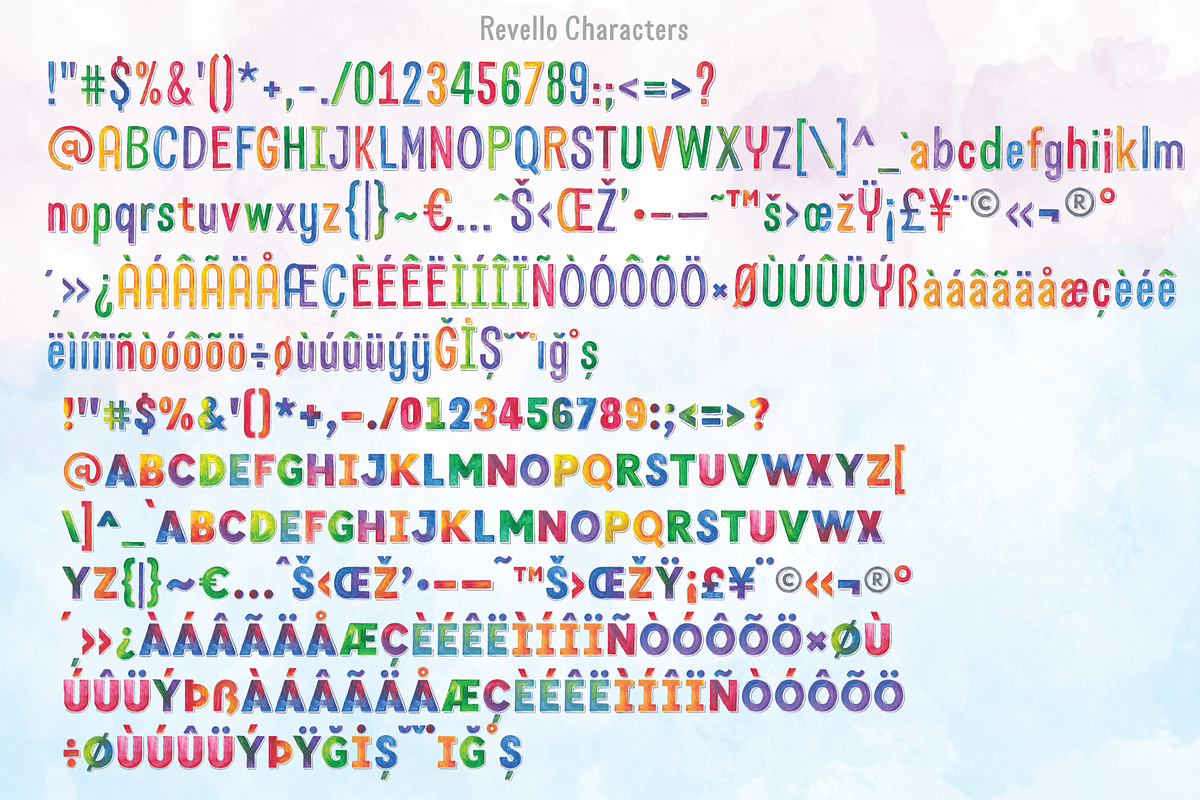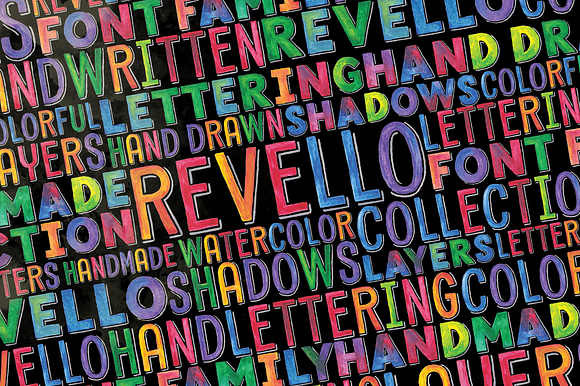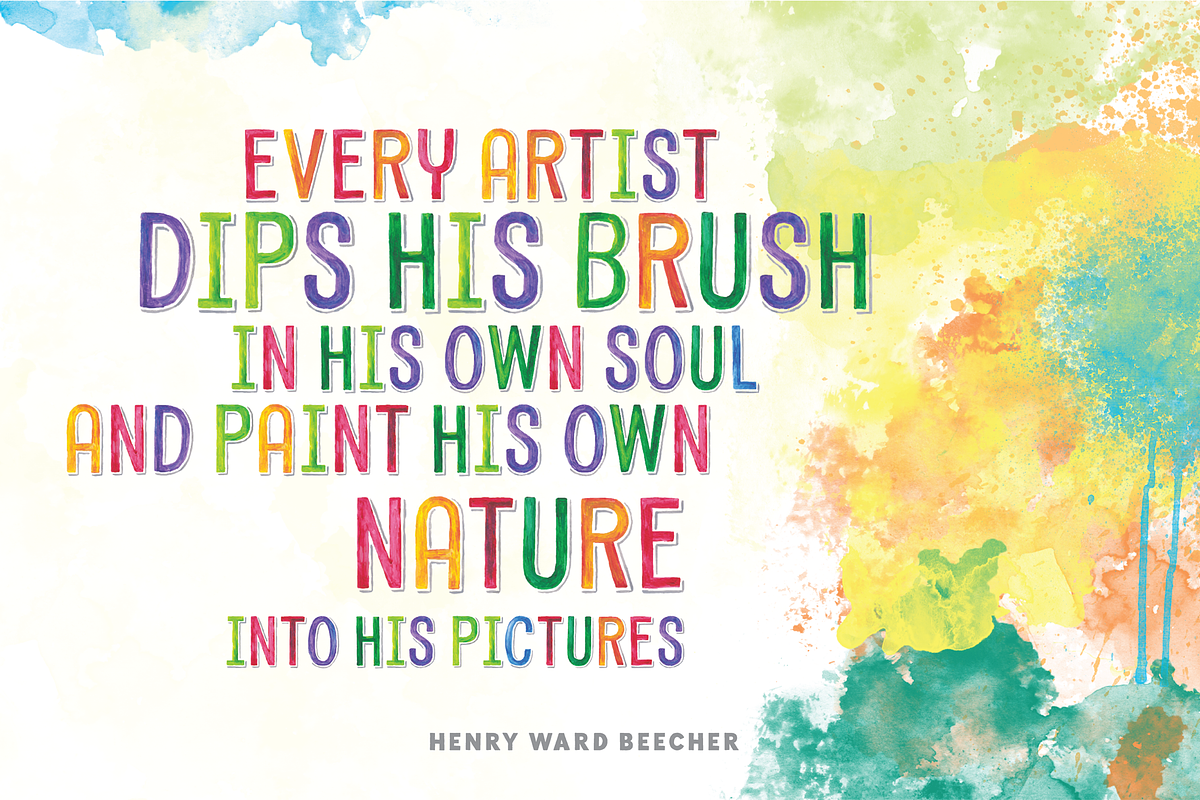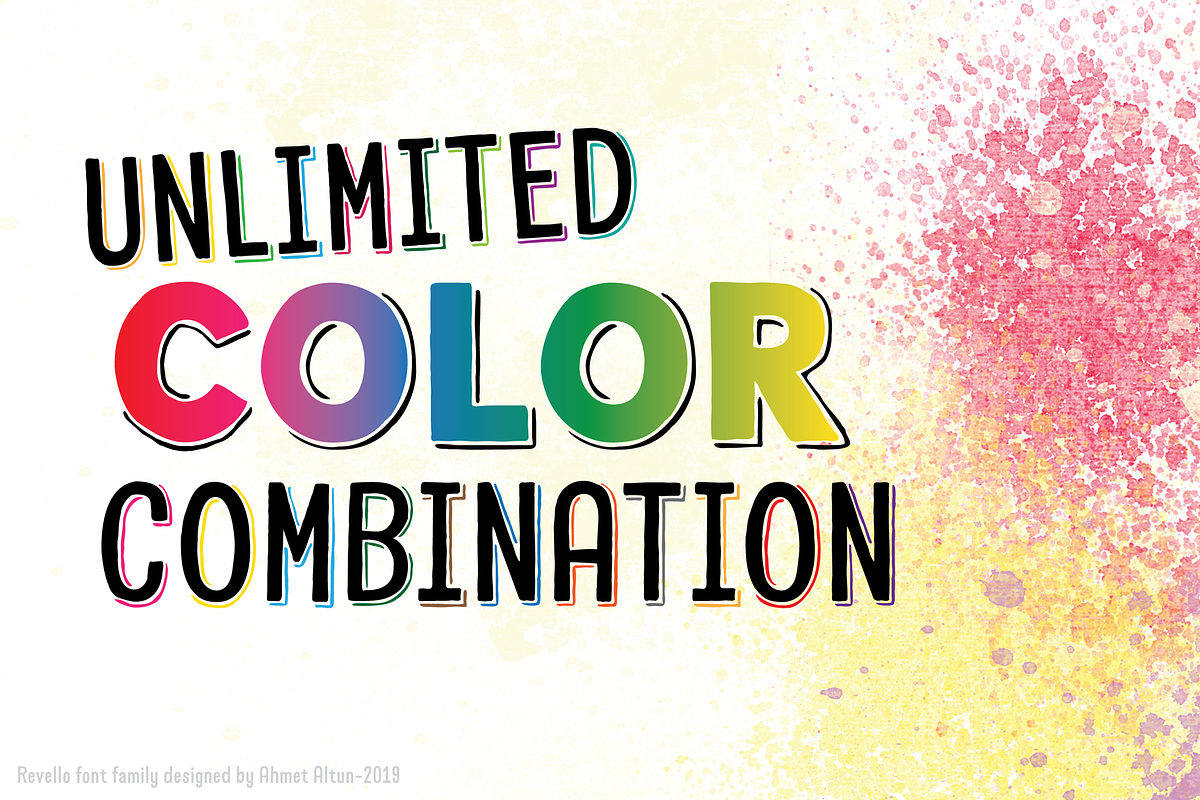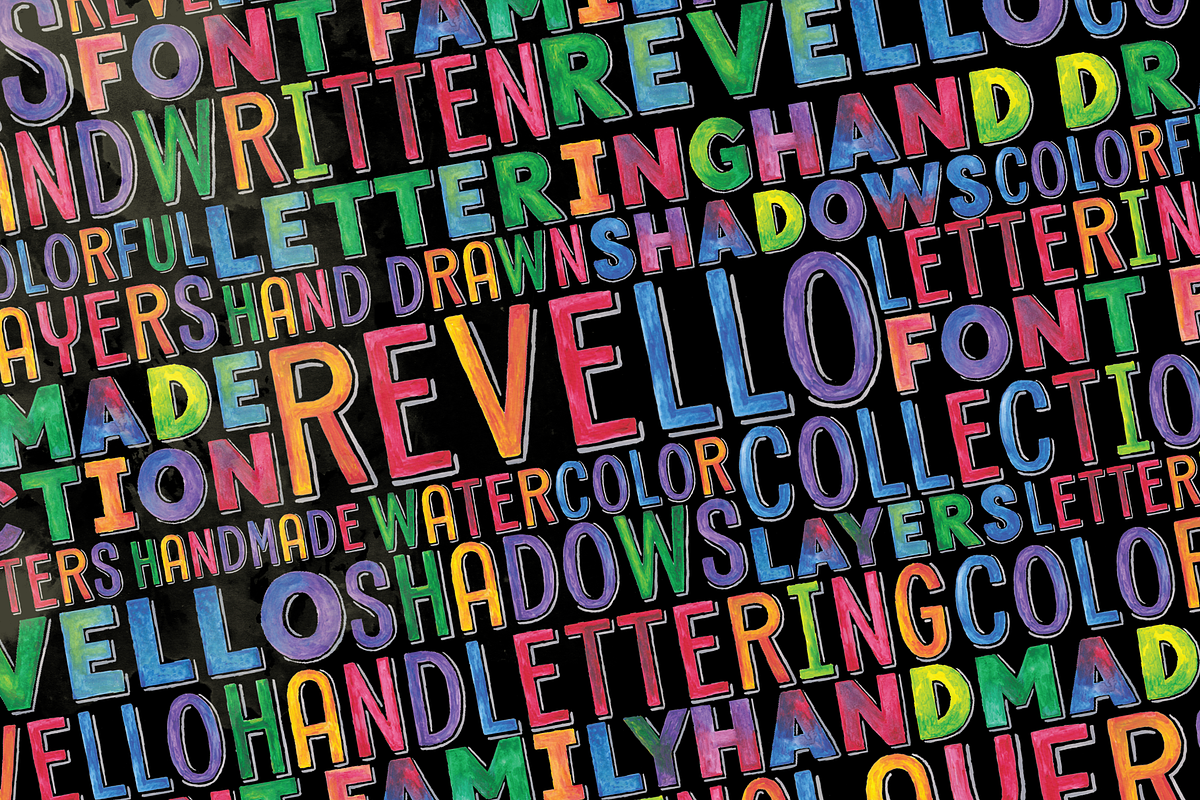
Revello SVG Hand-Painted Font Family
The Revello Font Family consists of two different decorative and extra-bold colored fonts, which have different forms but have a good harmony with each other. In the design steps, all characters were individually drawn with hand-made watercolor techniques, digitized to bitmap format, and then converted to Open-type SVG fonts by Fontlab VI. The colored characters of The Revello Font Family will be a very good choice for your lettering, t-shirt print, poster, invitation card, and menu works.
The archive includes generic OTF fonts and shadow mask fonts, in addition to colored fonts. This way, you can get unlimited combinations by changing the colors for shadows and fonts you want. With the Adjustments Panel of Photoshop, you can also create awesome Black&White designs. For the usage of the users who don't have this software, the Archive includes Ai and PDF folders which includes all bitmap-based glyphs. Both fonts and glyphs in the Ai folder have the same resolution. For the files in the Ai folder, the minimum system requirement is Adobe CS4+.